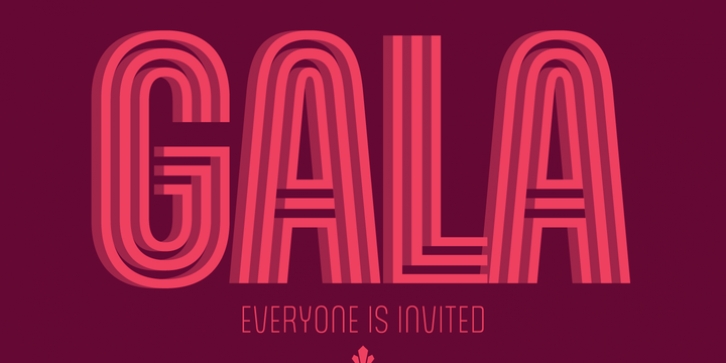
Gala is a digitization, correction, and major expansion of a typeface called Neon, designed by Giulio da Milano and published by the Nebiolo foundry in 1935. Neon came in two weights, along with a shadow version called Neon Ombra, and a "modules" version that consisted of a series of lines and cusps that could be used to build variations on the shapes and widths of da Milano's original forms. It was an instant international success upon its release. One of the very first modular faces with a clear-cut, minimal unicase construct, Neon is considered a direct predecessor of Microgramma/Eurostile, and has inspired countless designs across three type technologies. Pretty much every "techno" font now in existence has some Neon in it.
Canada Type's Gala series was originally published in 2005 and consisted of three fonts - straight revivals of the original Nebiolo set. Over the years since then, it became quite popular, and underwent many additions through custom commissions and special projects. A dozen years after the original release, there were enough additional elements to prompt a revisit of the set. Gala was meticulously redrawn, polished greatly expanded to include four weights in three widths, as well as 2-line, 3-line and Shadow fonts. Each of its 15 fonts comes with quite a few alternates and a solid 420-glyph character set for comprehensive Latin language support. So now Gala has become even more of an essential designer accessory. Its clean and airy shapes make for fresh and timeless settings, and its many widths and weights offer plenty of versatility on design grids.